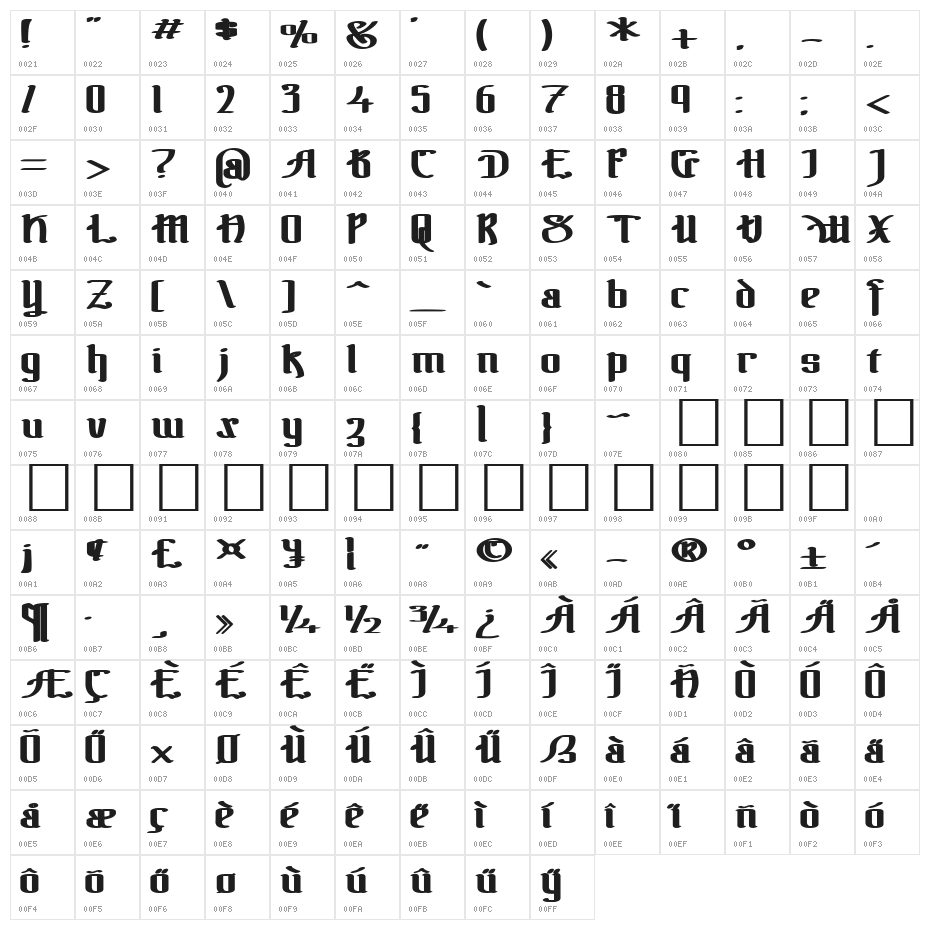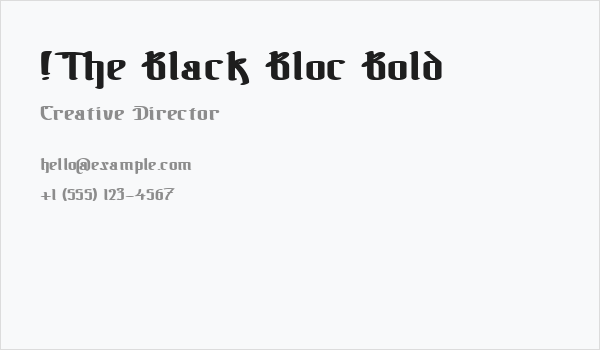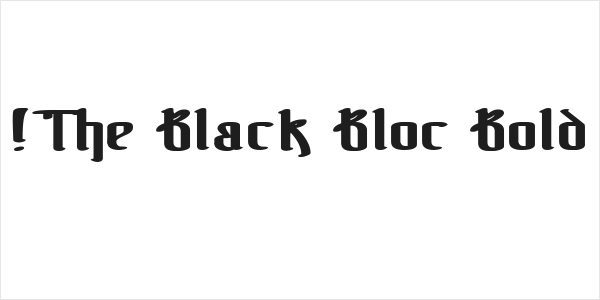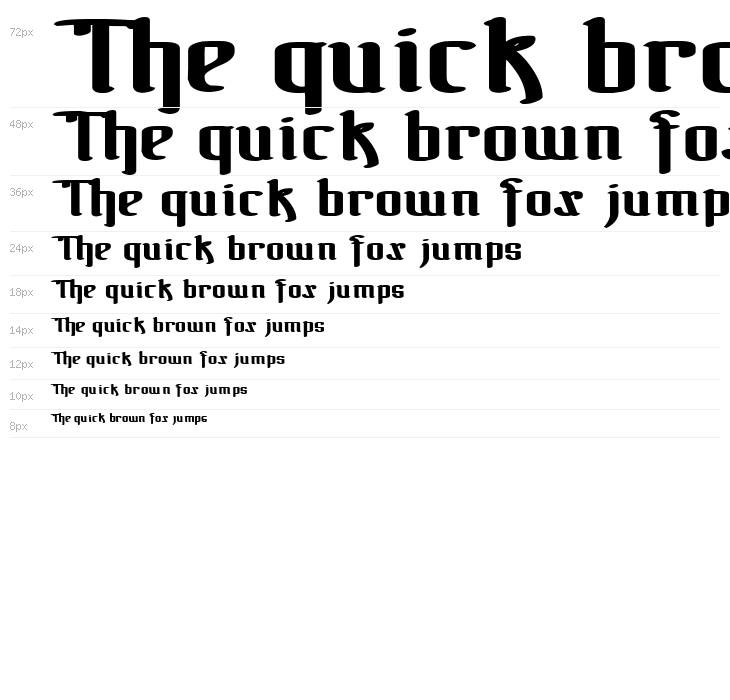
!The Black Bloc Bold Font
!The Black Bloc Bold Description
This font features a bold and striking blackletter style, characterized by its dramatic and angular strokes. The uppercase letters exhibit a strong presence with sharp edges and intricate details, while the lowercase letters maintain a consistent style with slightly softer curves. The numerals are equally bold, ensuring they stand out in any design. Special characters are designed with the same attention to detail, making them seamlessly integrate with the rest of the typeface. This font is ideal for projects that require a historical or gothic aesthetic, offering a sense of tradition and authority.
| Proposed Projects | Ideal for historical documents, gothic-themed designs, posters, and branding that requires a strong, traditional aesthetic. |